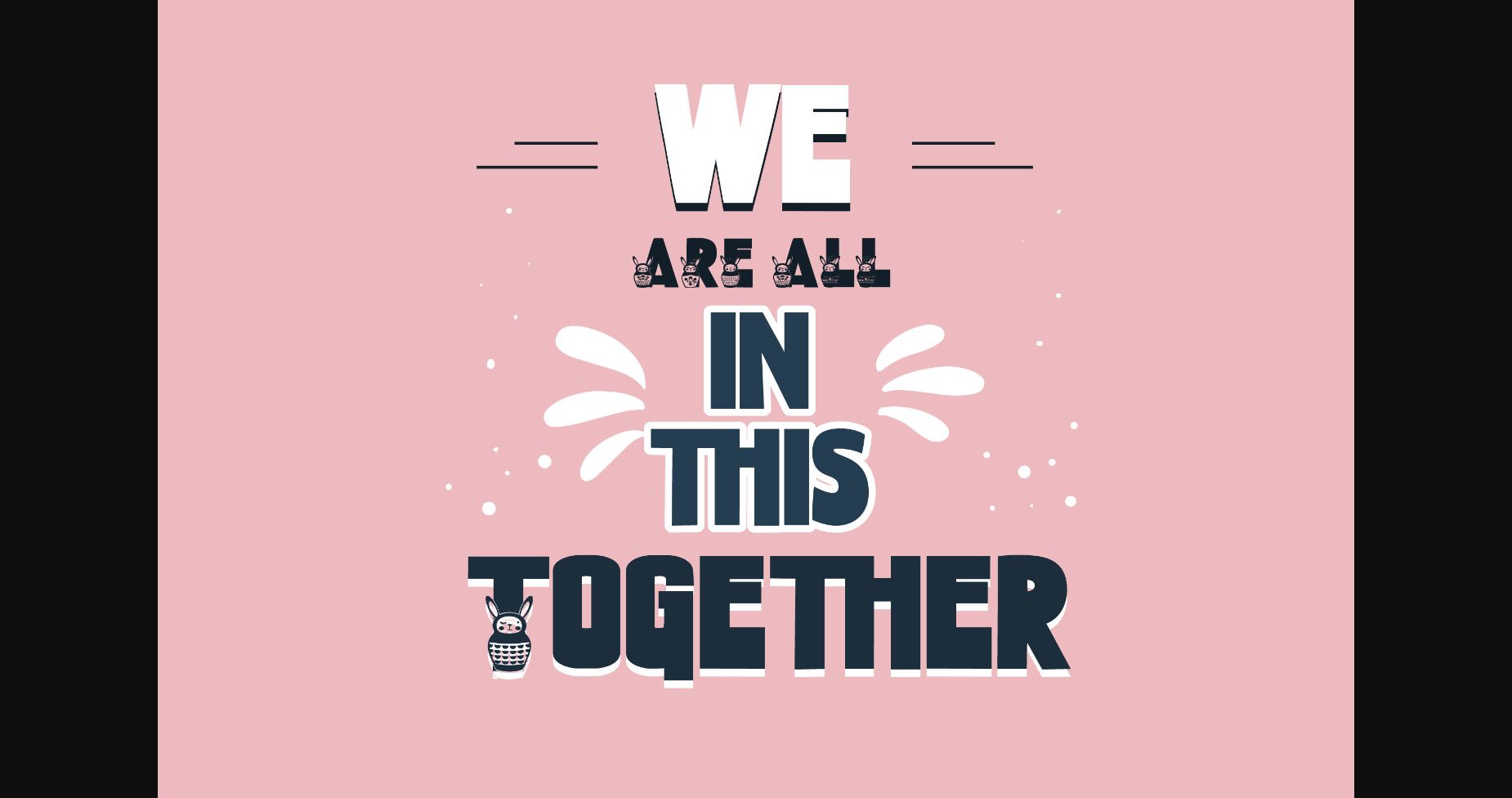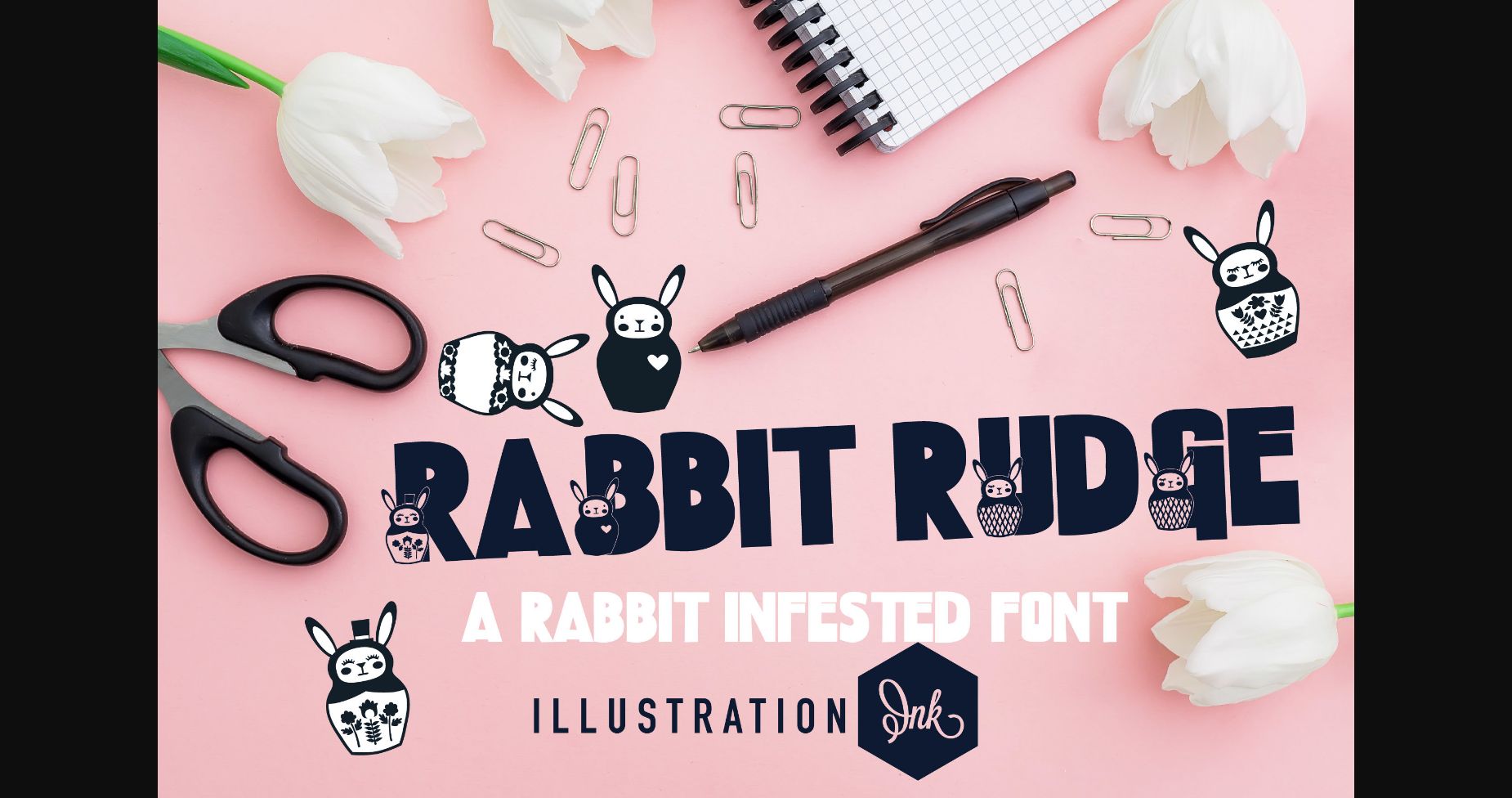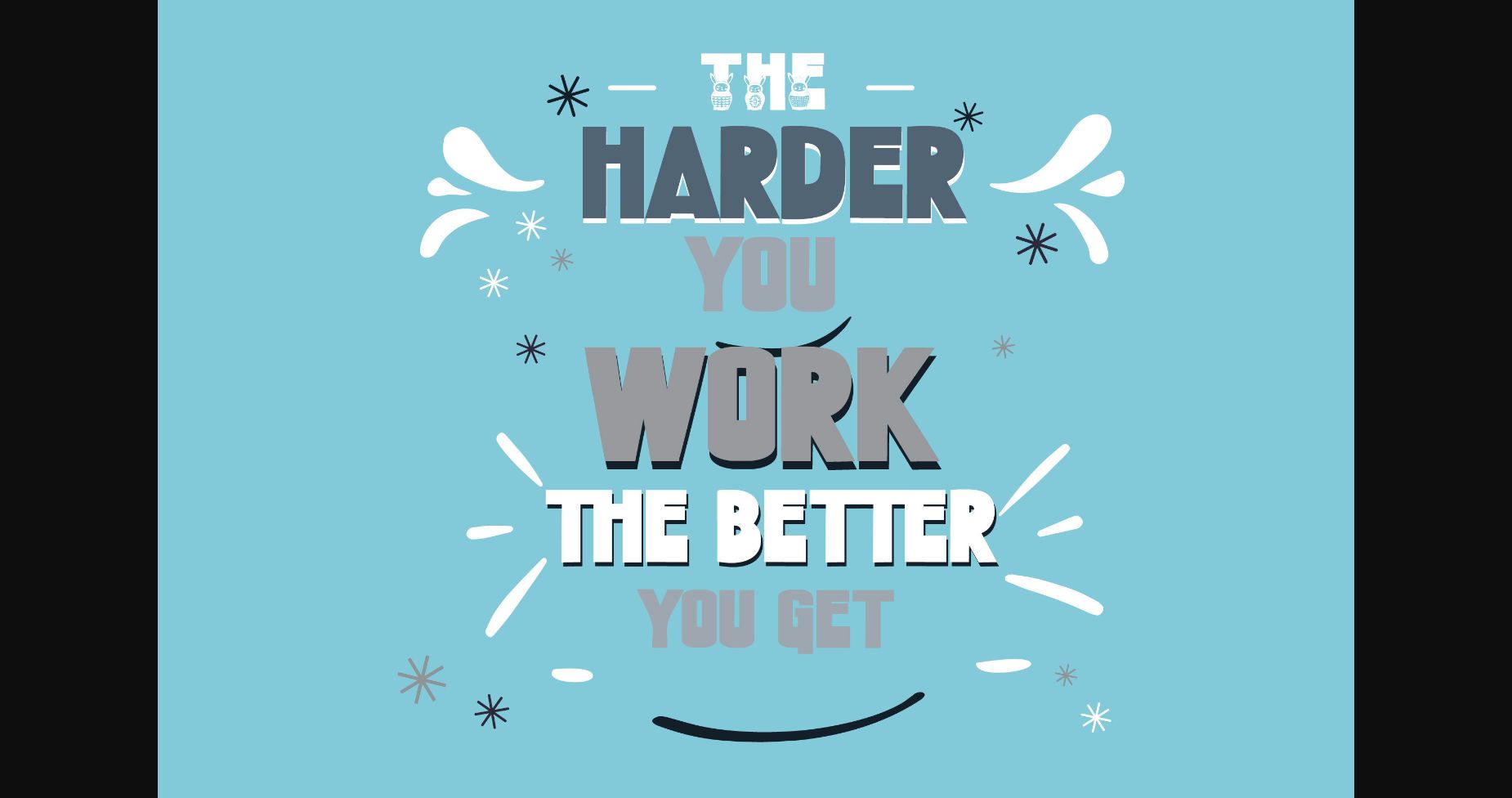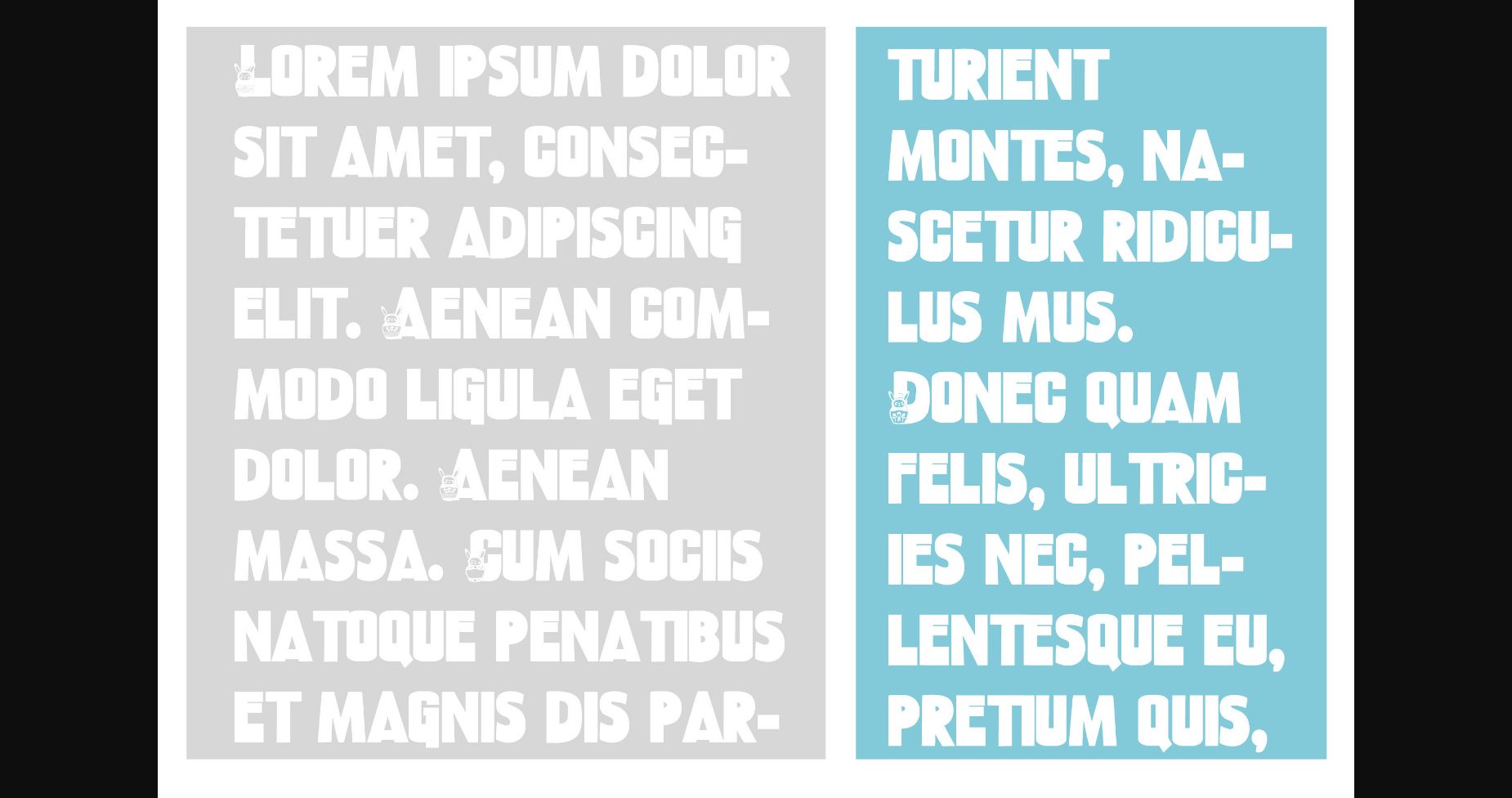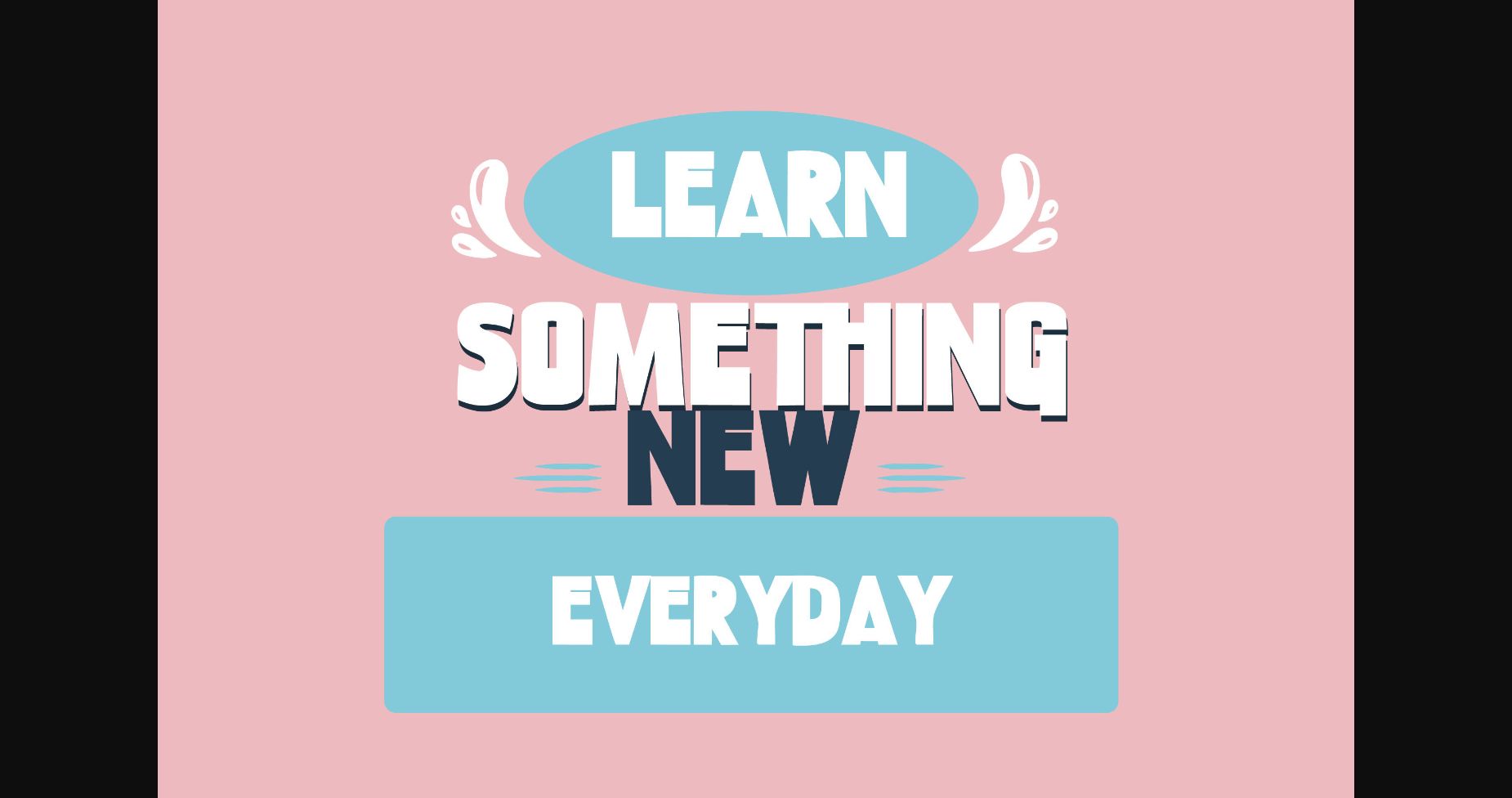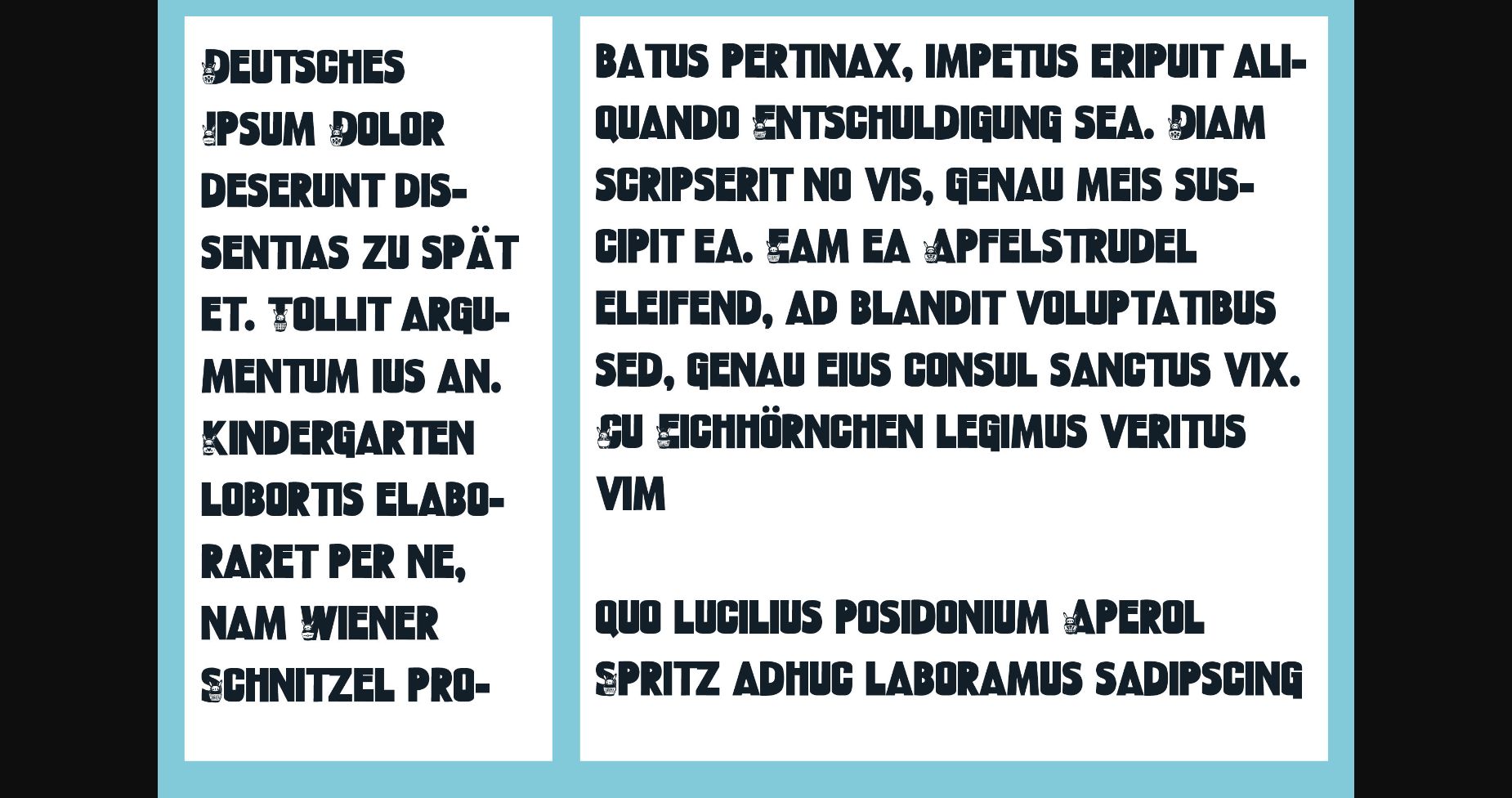
Rabbit Rudge Font
About Rabbit Rudge Font
Rabbit Rudge is a playful and distinctive option that’s perfect for designs celebrating the Easter season. Its unique letter shapes and charming design exude whimsy and character while maintaining a modern and polished feel. The letters work together harmoniously, creating a delightful and unforgettable look.